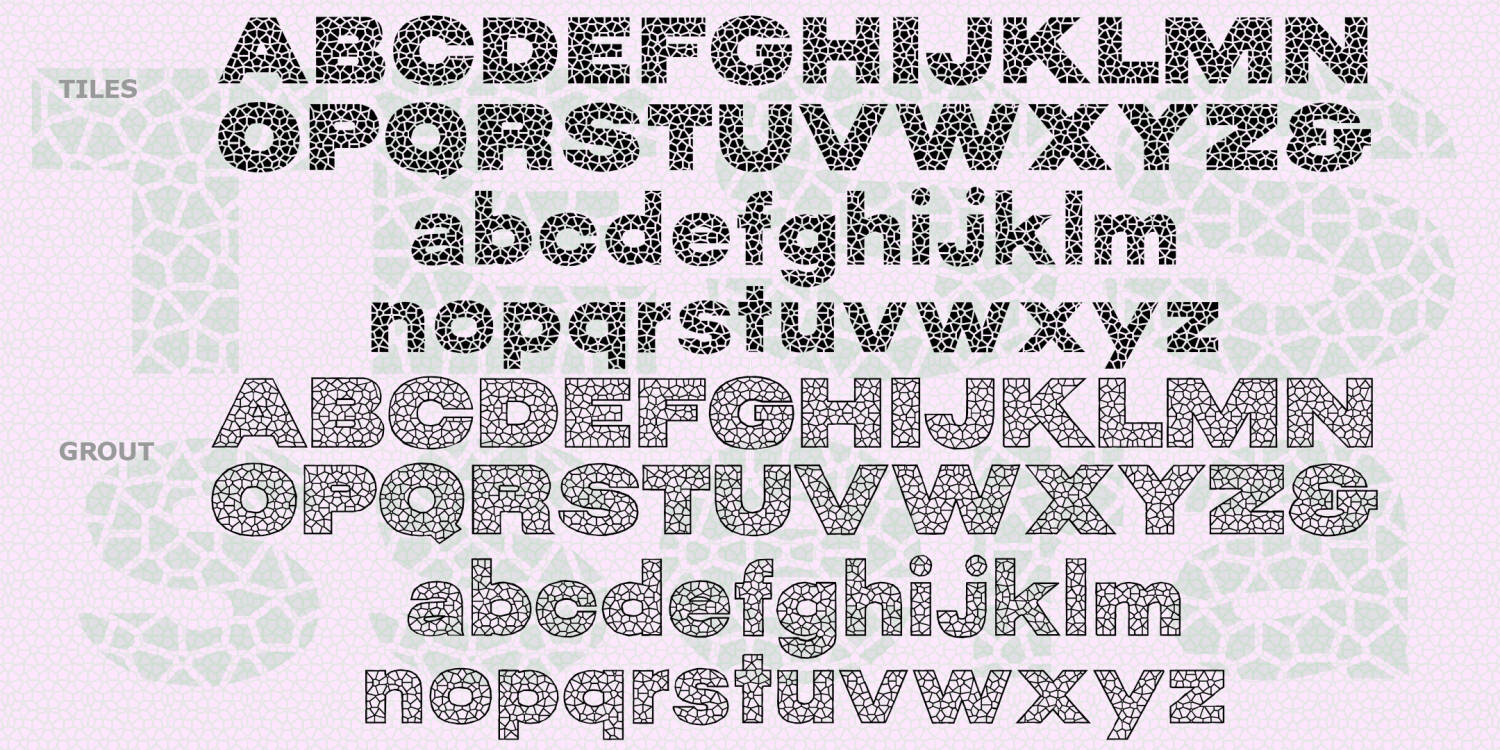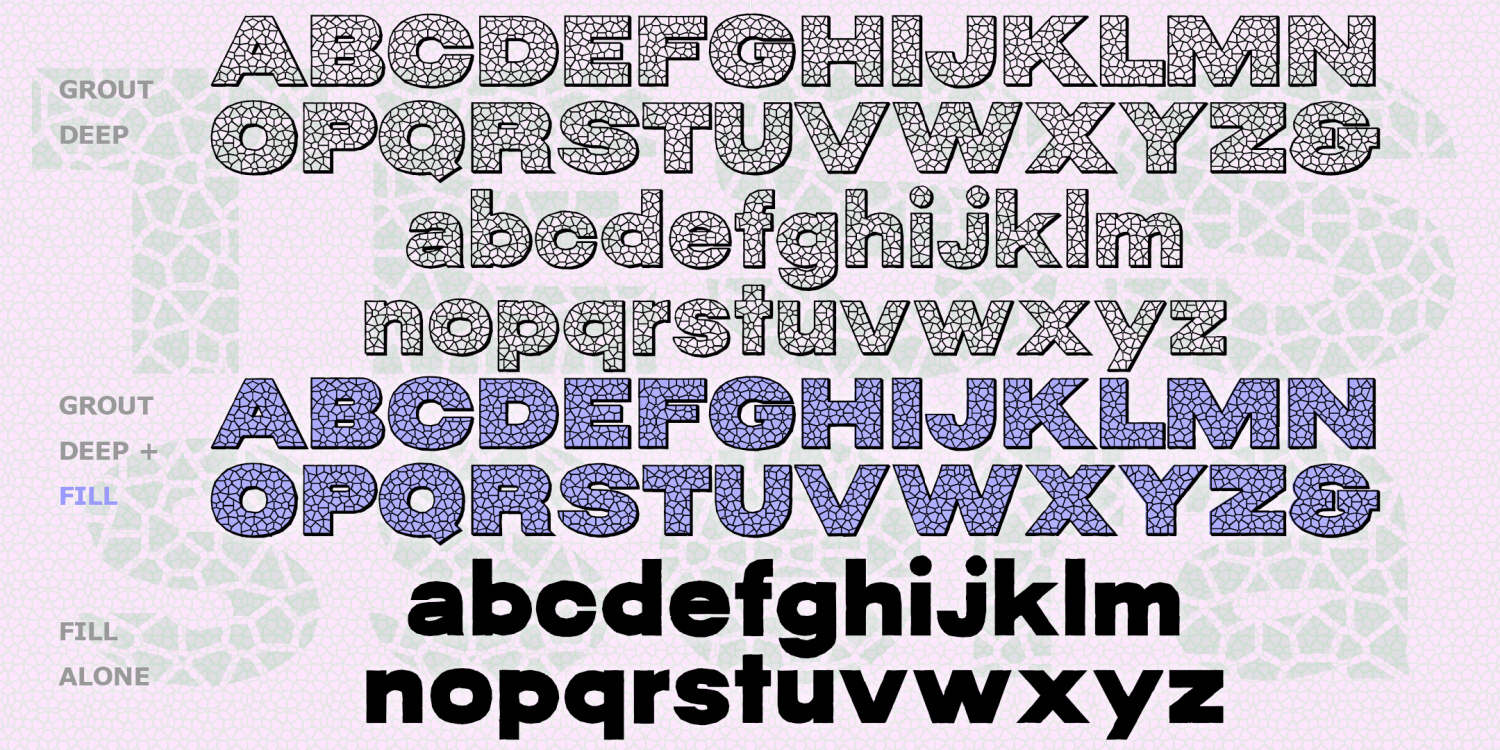
Tessera
Font Family by Harold's Fonts
TESSERA is a big bold sans serif that looks like broken-plate mosaic. Separate Tile, Grout, and Deep Grout fonts make realistic mosaic effects easy, and there's a companion Fill font that can be layered behind the Grout fonts in a contrasting color or a colorful photo. Type ^^^ in any of the fonts to make a continuous matching pattern.